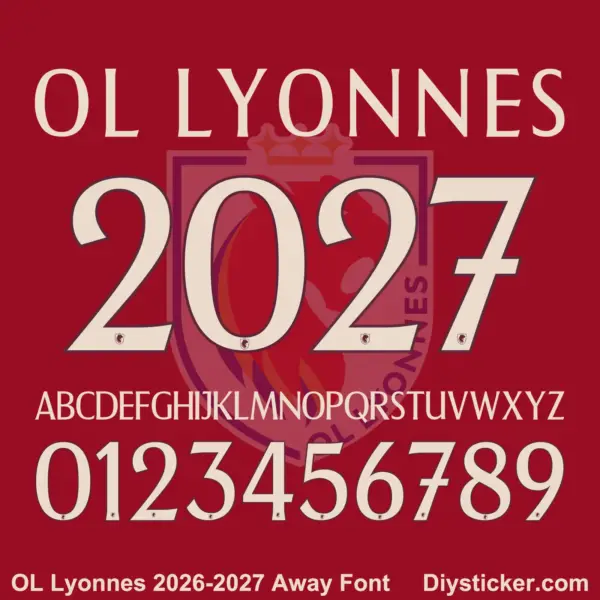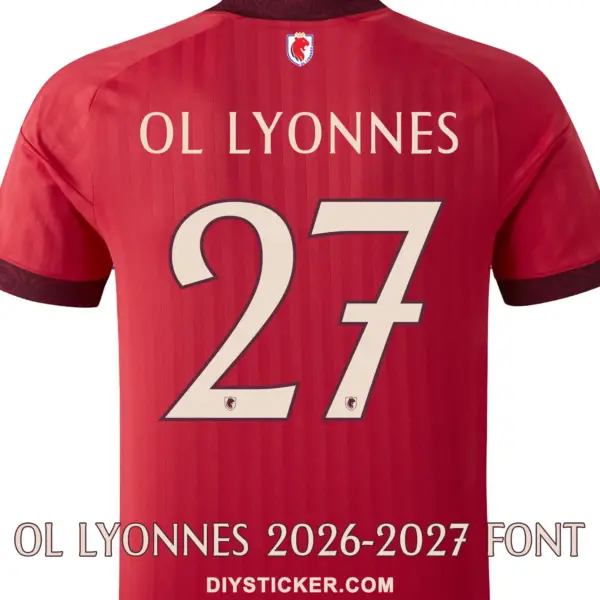
Expand your custom sports apparel catalog with the elegant OL Lyonnes 2026-2027 Away Font download! Tailored for print shops, kit customizers, and vinyl plotters, this digital asset package features the official away match-day typography used by Les Fenottes. Designed to complement the dark red/burgundy away kit, this font incorporates refined, classic flared serif lettering, subtle dark border outlines, and the crest of OL Lyonnes embedded at the base of every digit. It is the premier custom jersey printing font OL Lyonnes away solution for heat press transfers, DTF printing, and custom vinyl production.
Complete uppercase alphabet, OL Lyonnes away numbers vector, and international diacritics.
Elevate Your Kit Customization with the OL Lyonnes 2026-2027 Away Font
Enhance your custom sportswear collection with the official 2026-2027 away jersey font for OL Lyonnes! Crafted for precision jersey customization, this digital asset pack delivers an authentic OL Lyonnes 2026-2027 away font download featuring a sophisticated, classical serif aesthetic. The design includes refined flared-serif uppercase lettering (OL LYONNES) and tall, sweeping squad digits rendered in warm cream with dark maroon outline borders, complete with the official club badge embedded at the base of each digit.
Comprehensive Character Mapping
Your instant digital download includes a complete alphanumeric character set configured to exact team kit specifications:
A-Z Uppercase Alphabet: High-visibility, classical flared serif letterforms engineered for player nameplates.
0-9 Custom Inlined Squad Numbers: Elegant, tall numeric glyphs styled with thin outer border lines and the official OL Lyonnes crest embedded at the bottom (supplied as OL Lyonnes away numbers vector).
Special Accents & Diacritics: Complete set of punctuation marks and international accents (
Á,Č,Ç,É,Ğ,Í,Ñ,Ö,Š,Ú,Ž) to accurately render diverse player names across global star rosters.